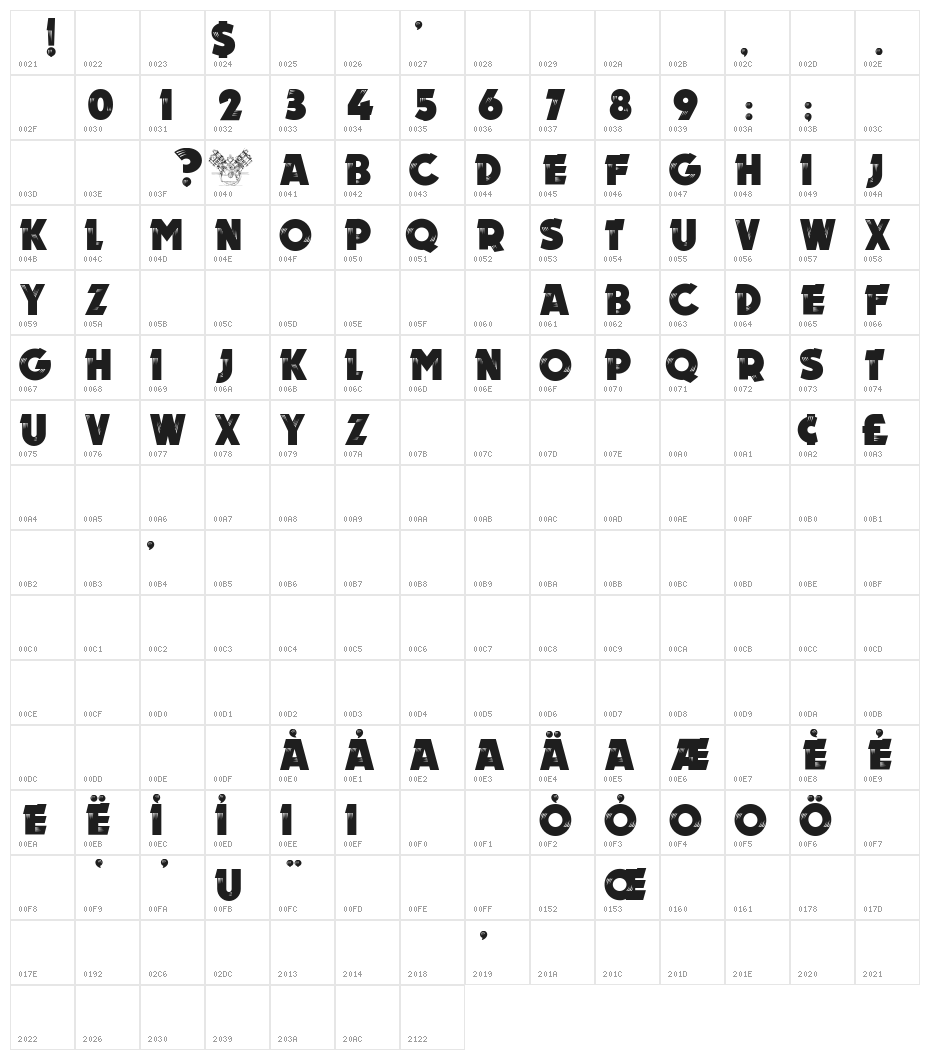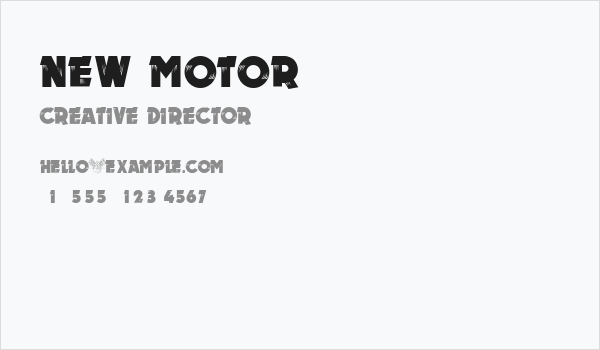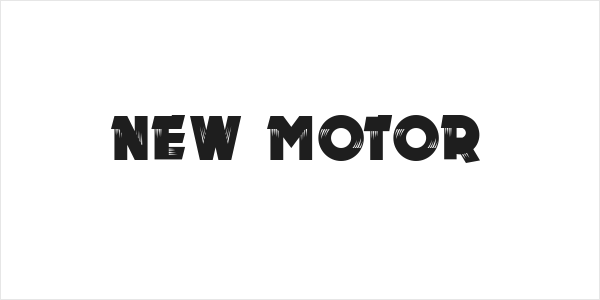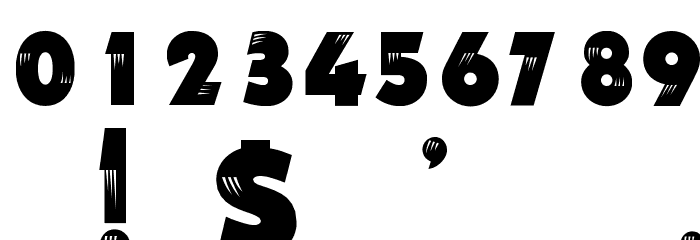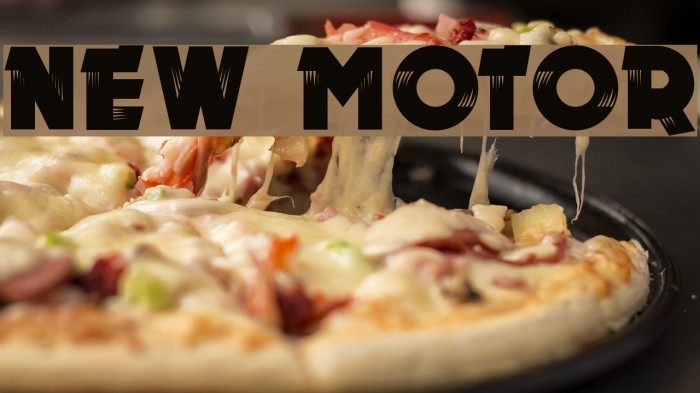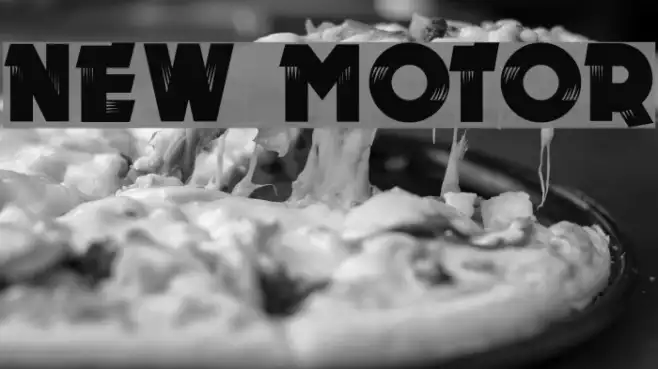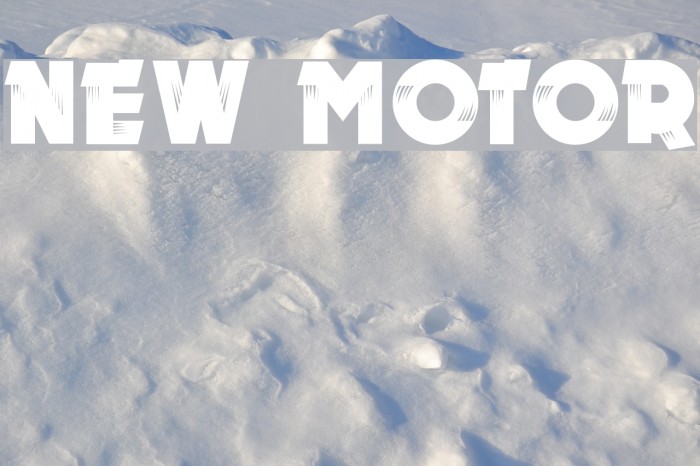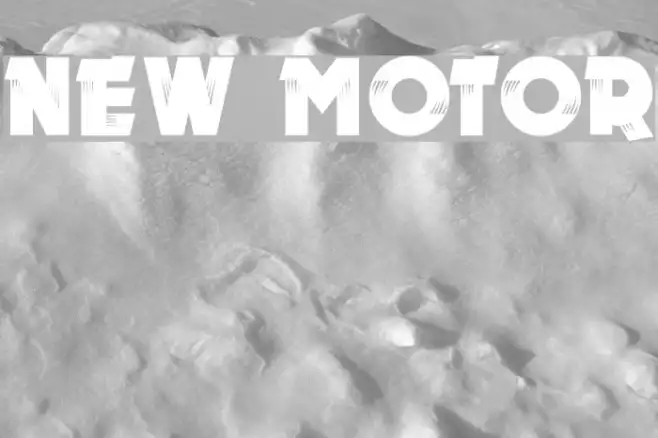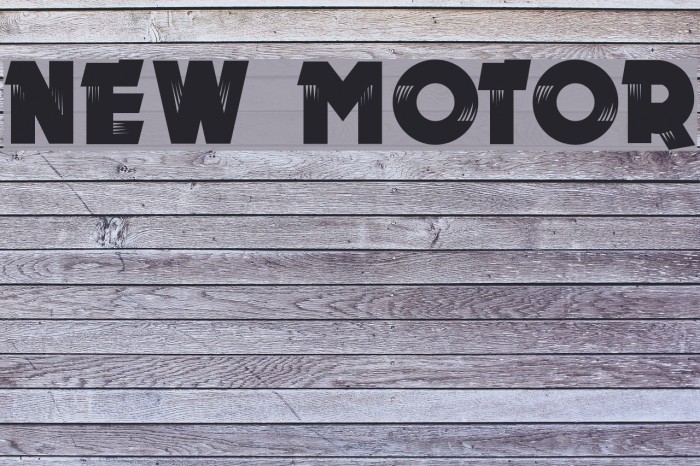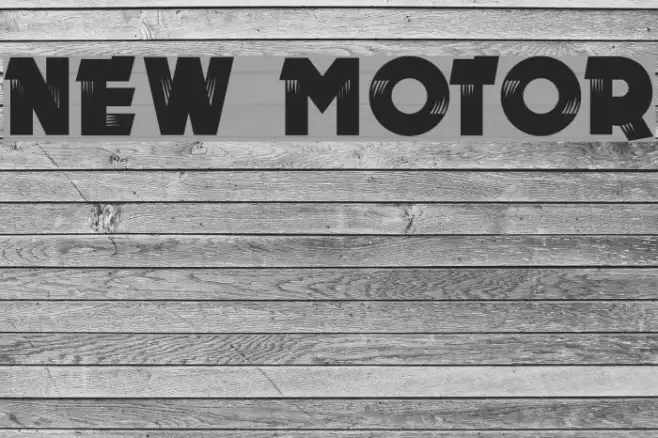
New MOTOR Font
New MOTOR Description
This font features a bold and dynamic style with a distinct slanted line pattern across each character, giving it a sense of motion and energy. The uppercase letters are robust and impactful, while the lowercase letters maintain the same energetic design. The numbers and special characters follow the same stylistic approach, ensuring consistency throughout. The font's unique design makes it stand out, ideal for projects that require a strong visual impact. Its decorative nature is perfect for eye-catching headlines or branding materials.
| Proposed Projects | Ideal for branding, posters, and headlines that require a strong visual impact. |